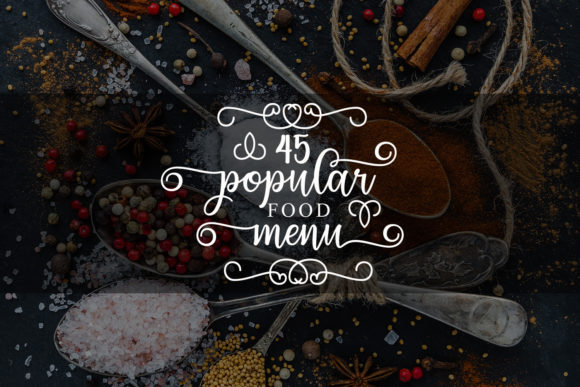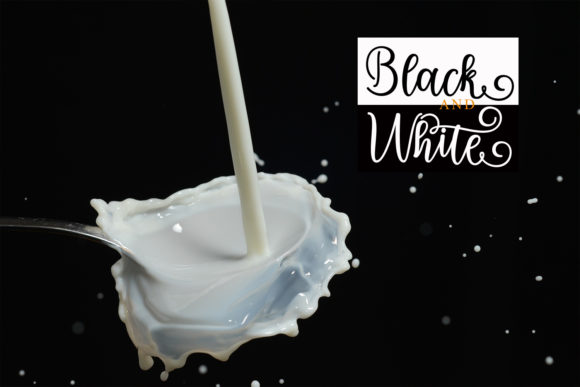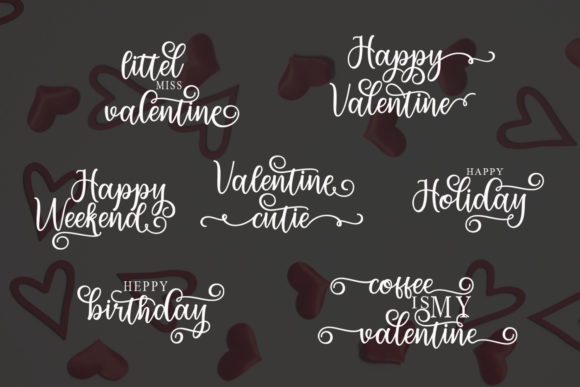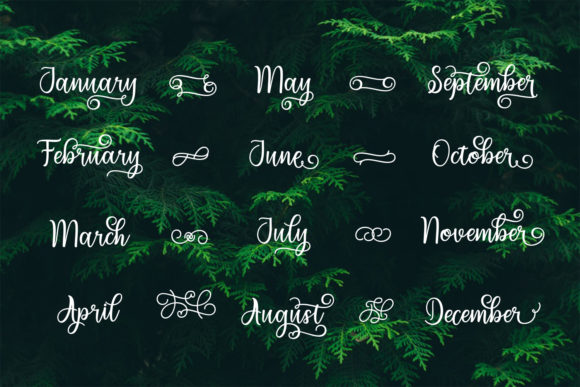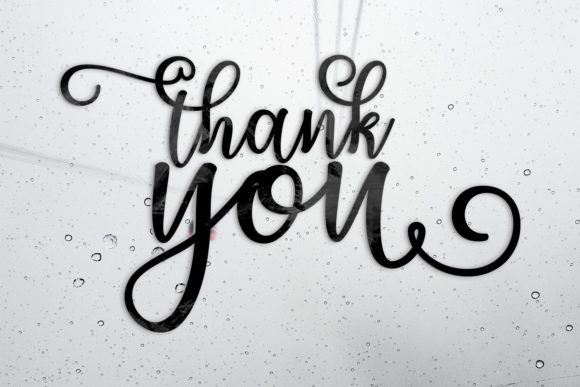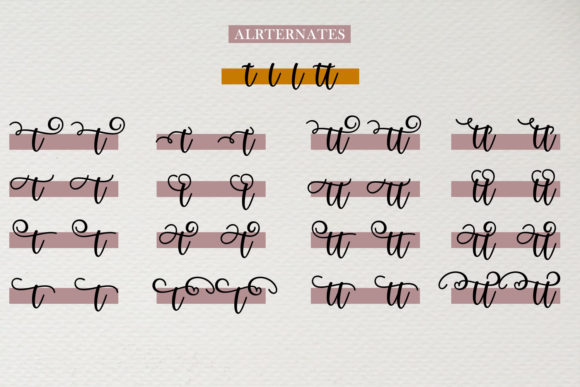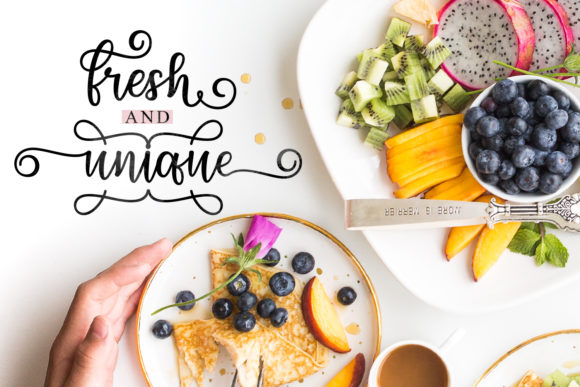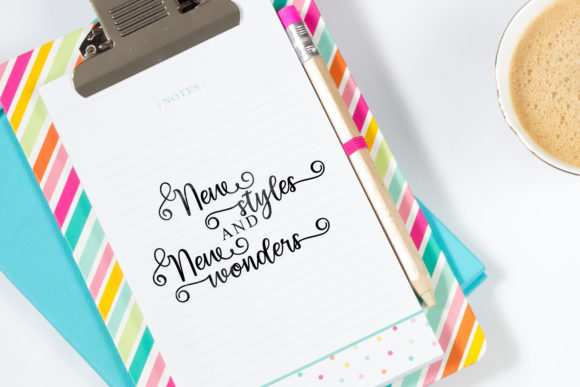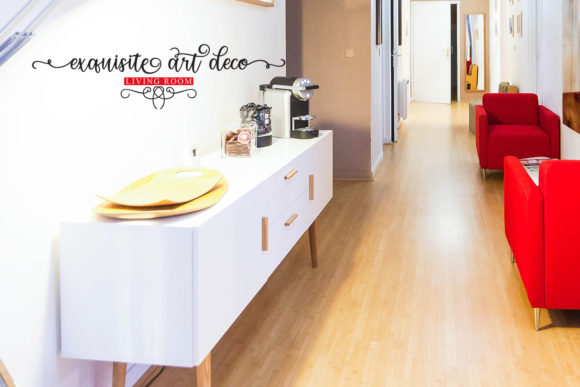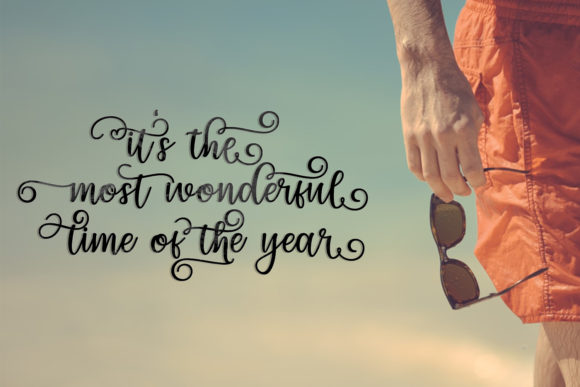
Migdale Font
About Migdale Font
Migdale is a playful script font with swirly characters and a varying baseline. Its pretty flourishes can add beauty to any design project!